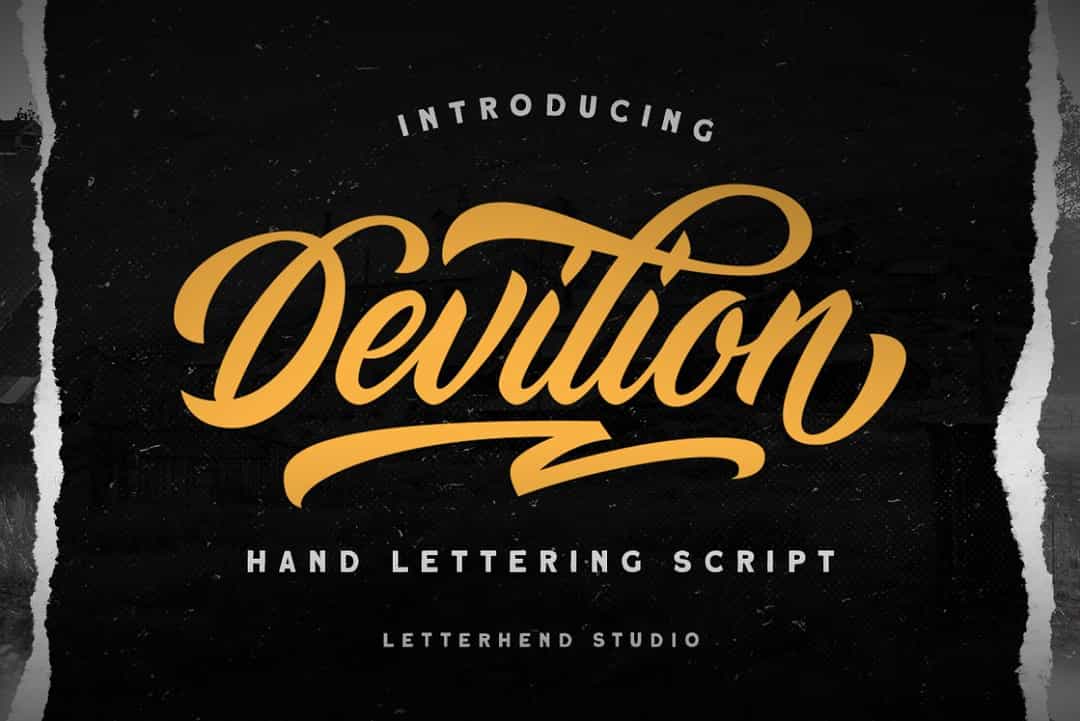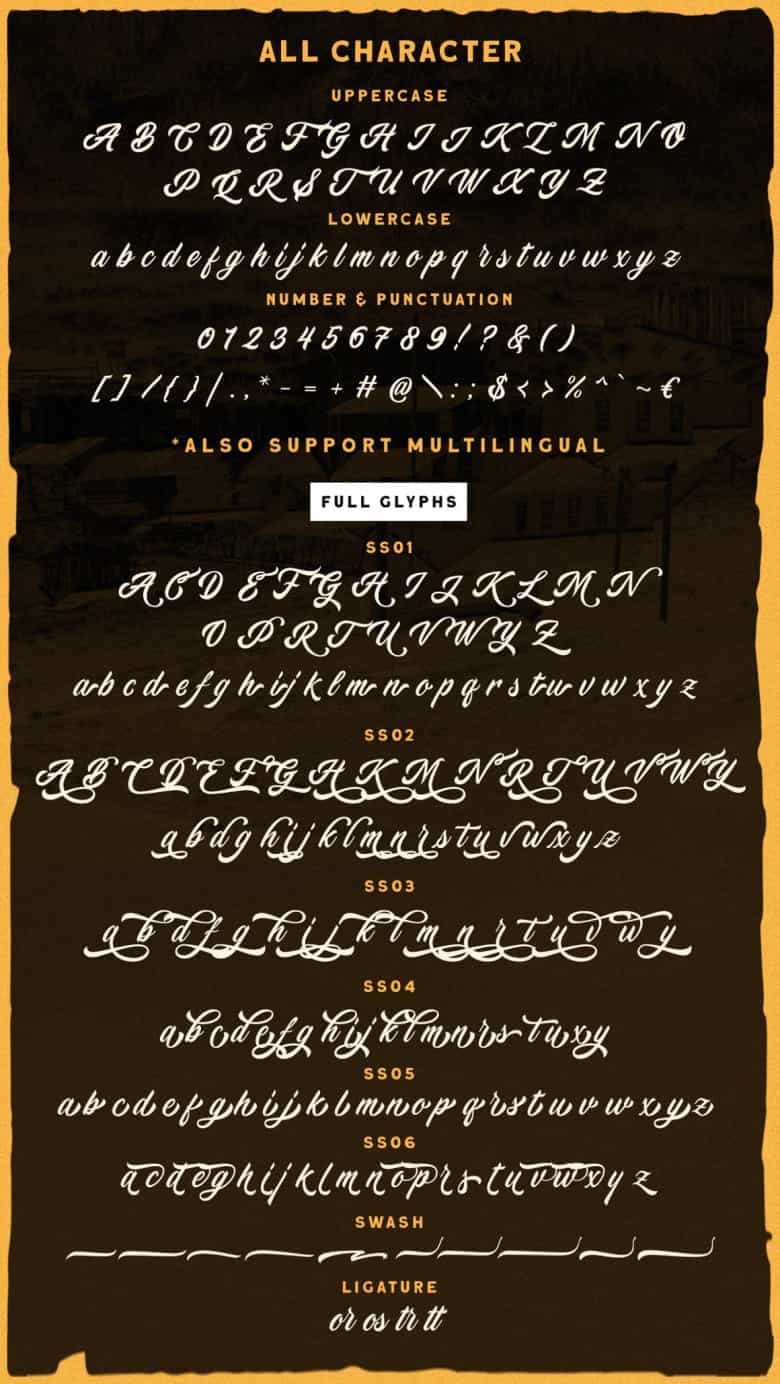
Devilion Calligraphy Font is an elegant hand-lettering strong script font with beautiful alternates and swashes! Perfect for logos and formal formats like labels, invitations and books as well as magazines logos, wedding, greeting cards packaging fashion, makeup books, stationery labels or labels for any commercial purpose!